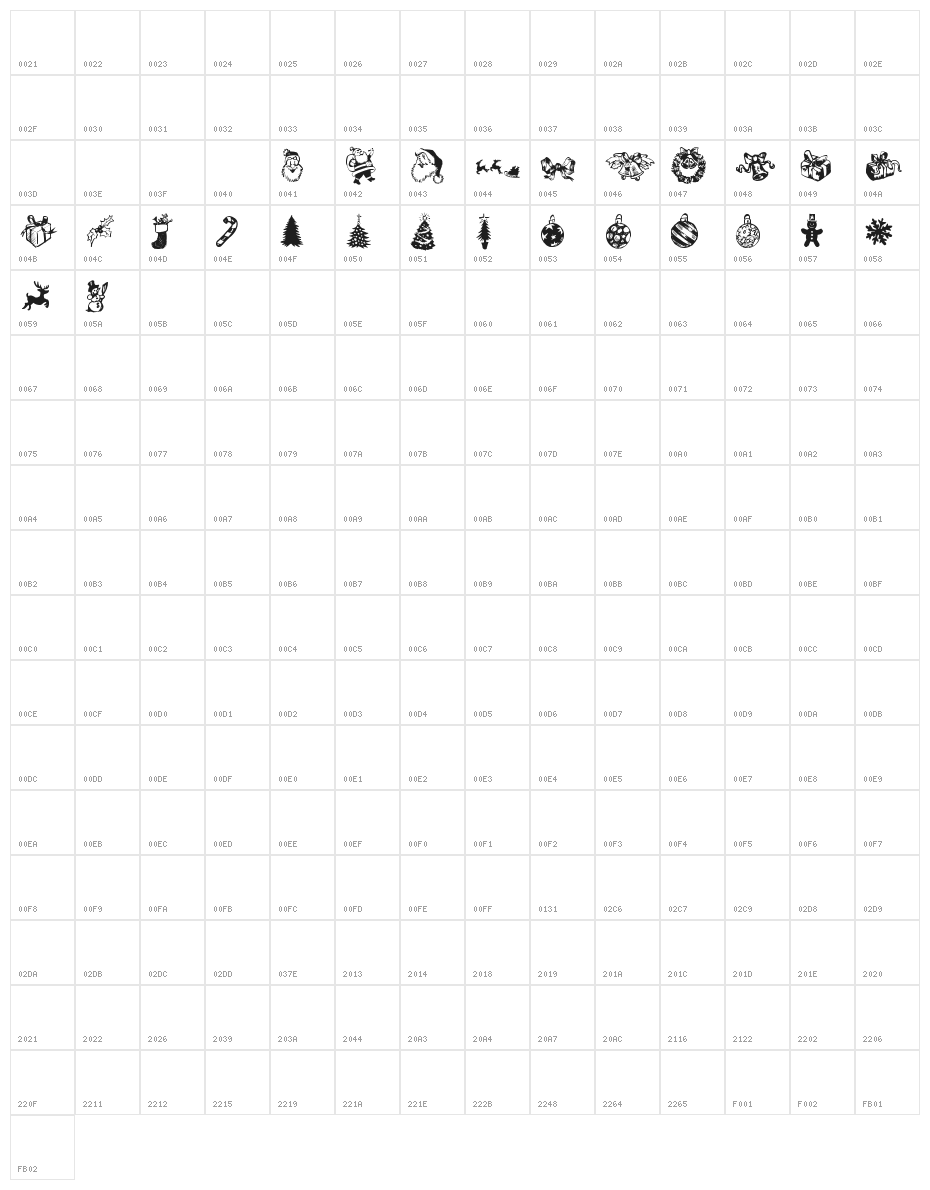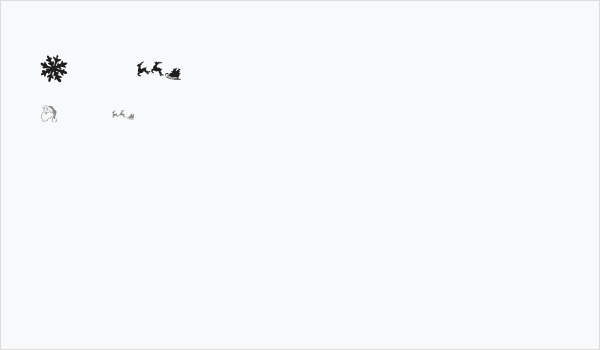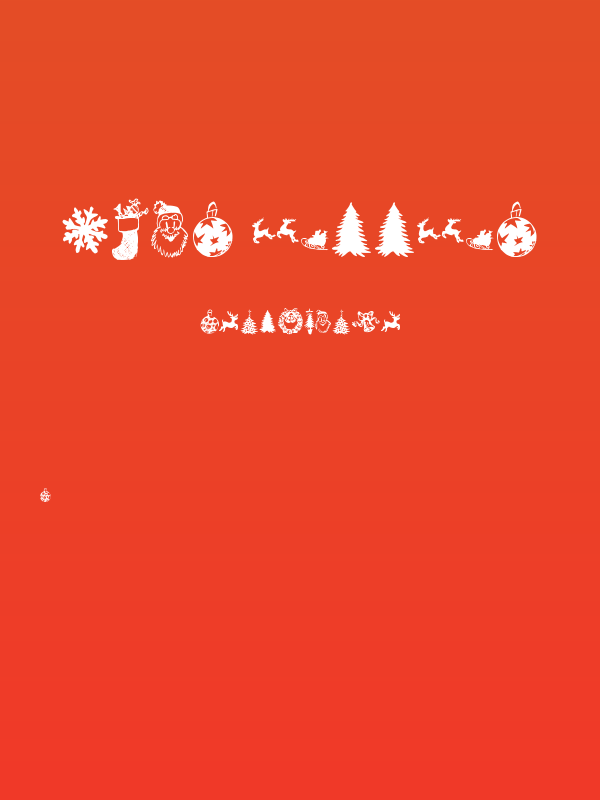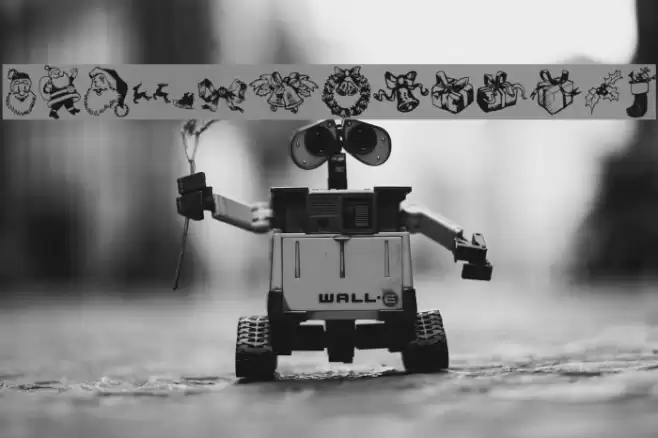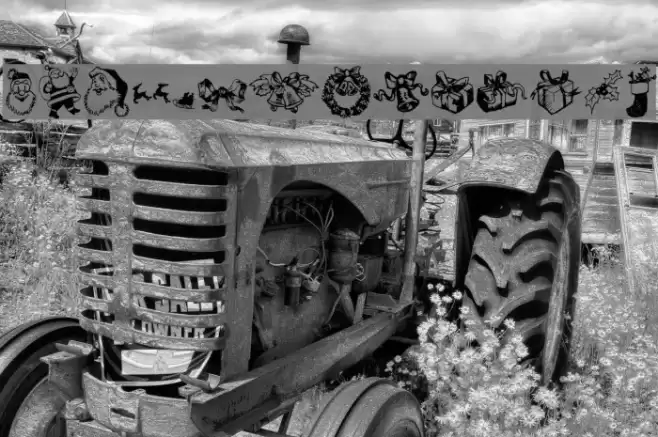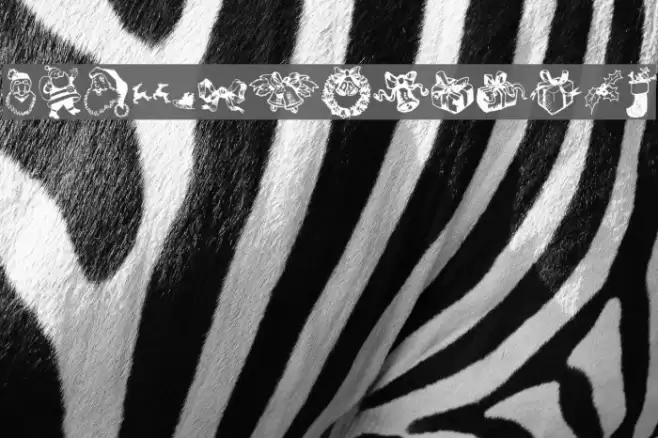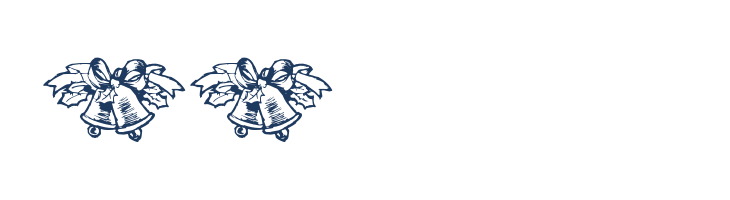
Xmas Doods Font
This collection features a variety of festive Christmas-themed doodles, including Santa Claus, reindeer, Christmas trees, ornaments, gifts, and other holiday symbols. Each doodle is intricately designed with a playful and whimsical style, perfect for adding a touch of holiday cheer to any project. The illustrations are bold and detailed, capturing the essence of the festive season with a charming and joyful aesthetic. The doodles are presented in black and white, allowing for easy integration into various designs and color schemes.
| Use Case | Logos, Headlines, Decorative elements |
| Proposed Projects | Ideal for holiday greeting cards, festive invitations, Christmas-themed posters, and seasonal social media graphics. |